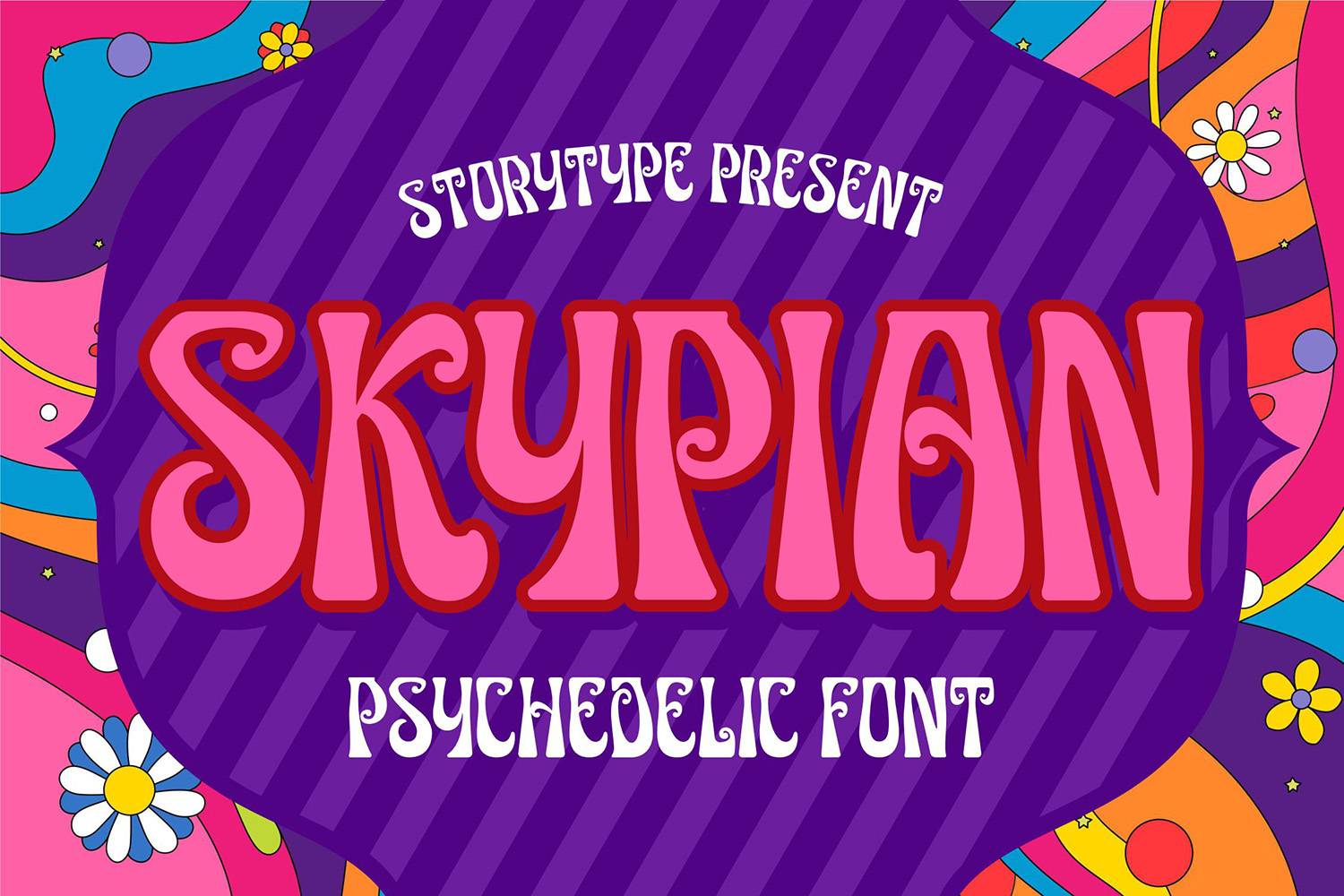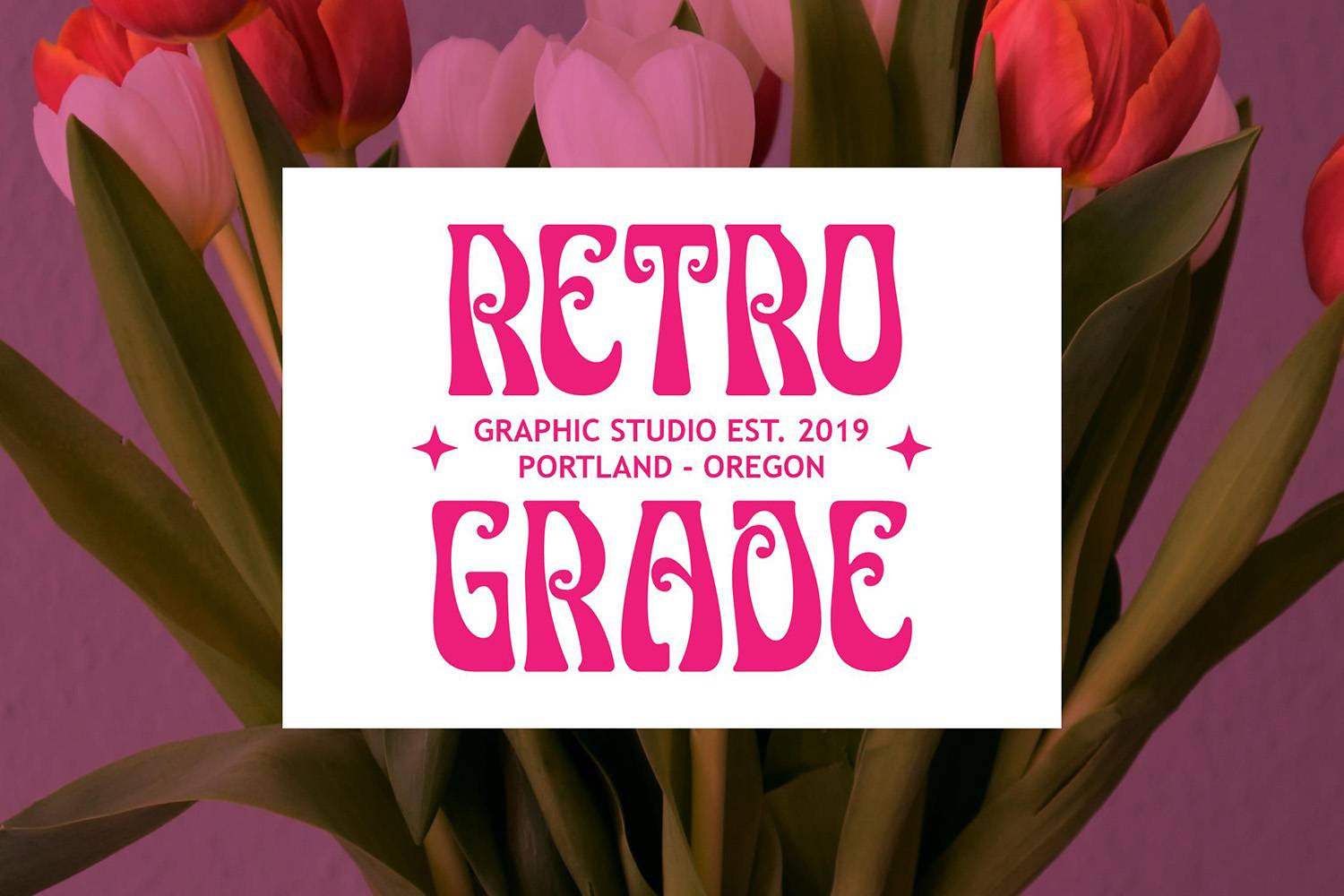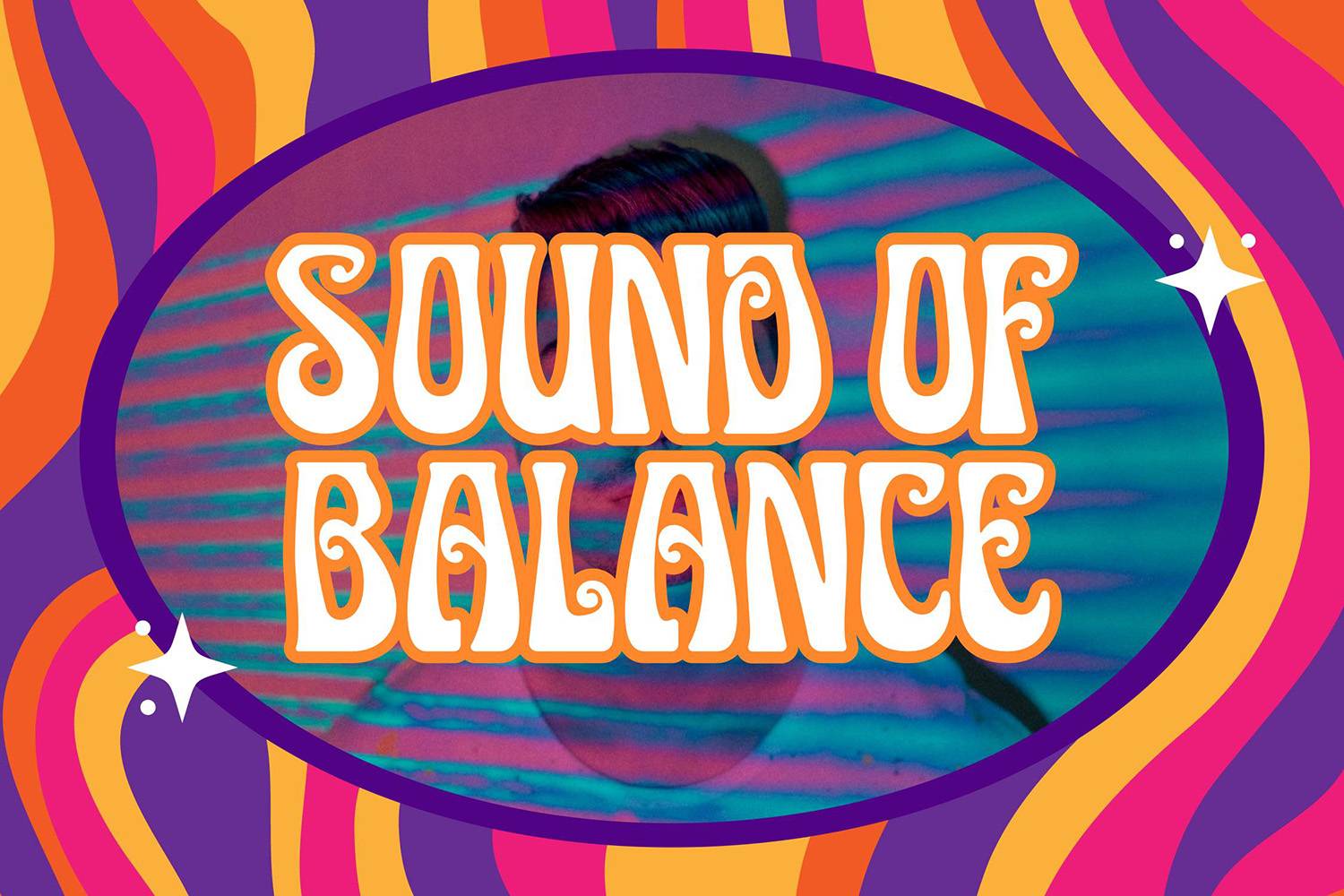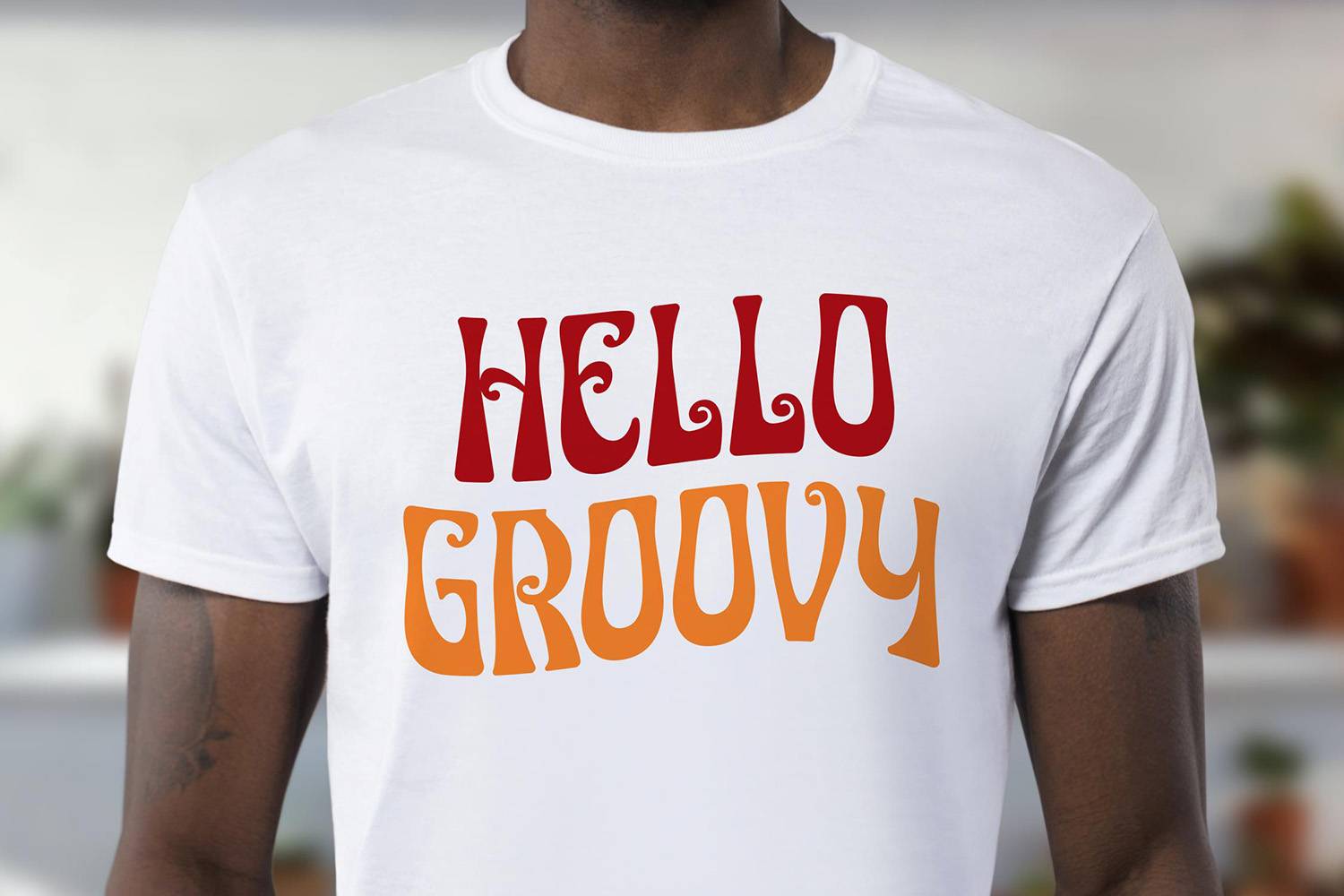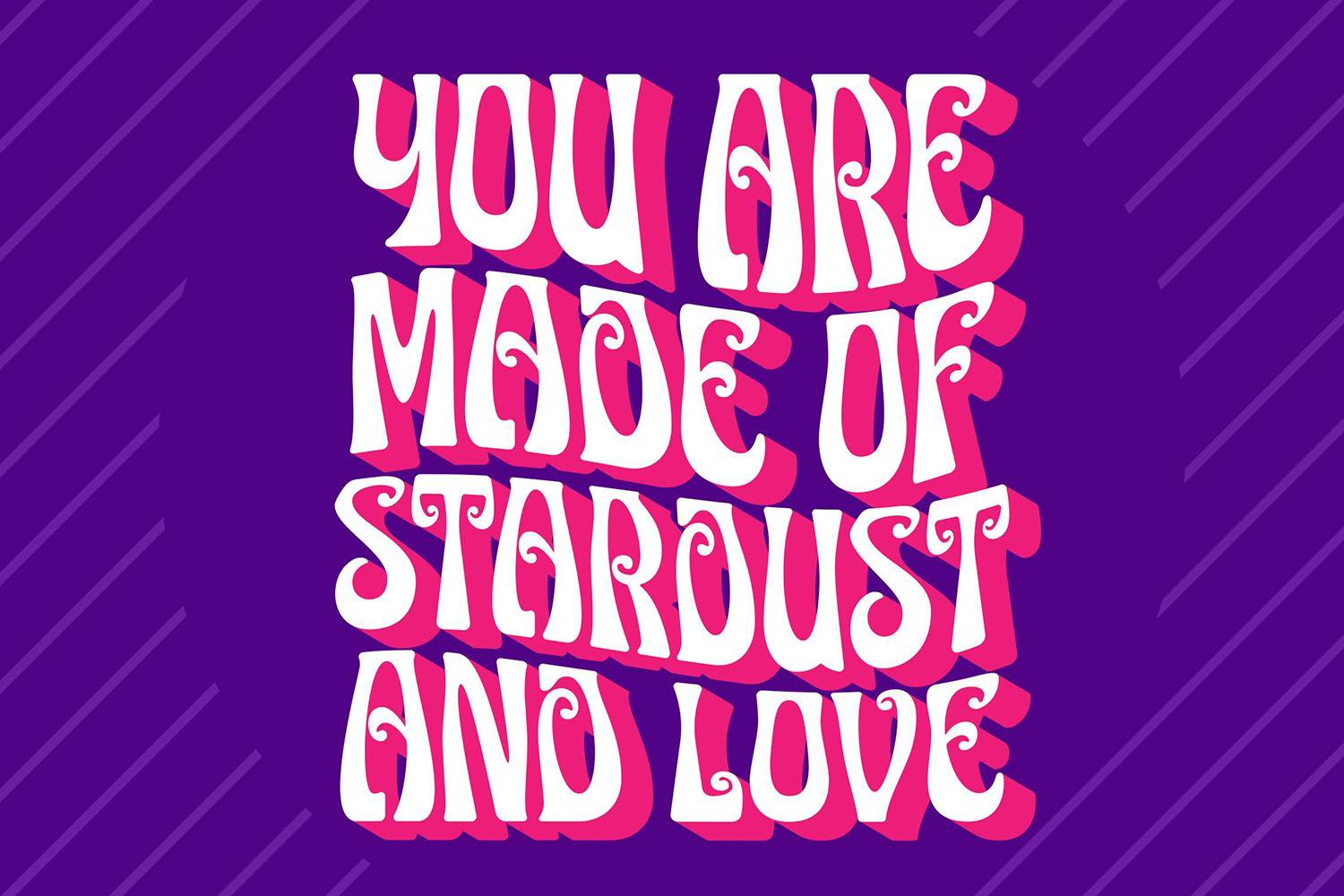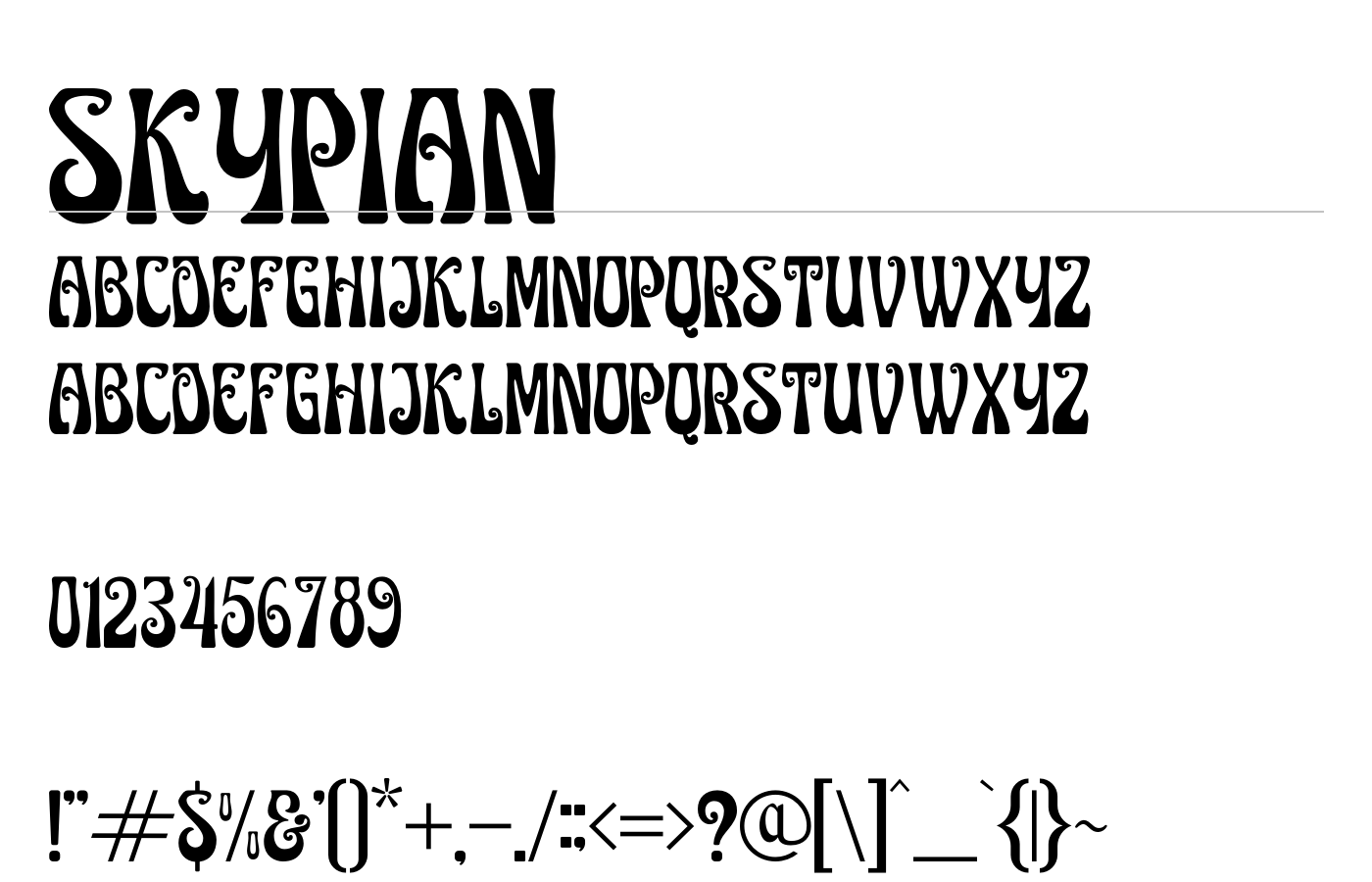
Skypian is a bold, decorative serif font with playful, swirling terminals that give it a whimsical and vintage feel. Its condensed letterforms and strong contrast make it perfect for eye-catching headlines, logos, and creative branding that wants to convey a quirky yet elegant personality. This font works well for projects that need a unique, artistic touch with a retro vibe.
Skypian Font
About Skypian Font